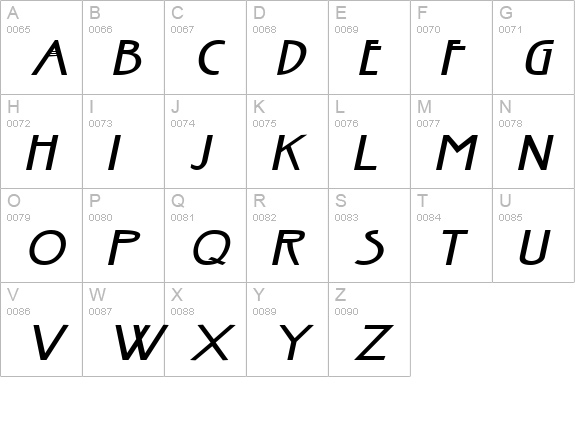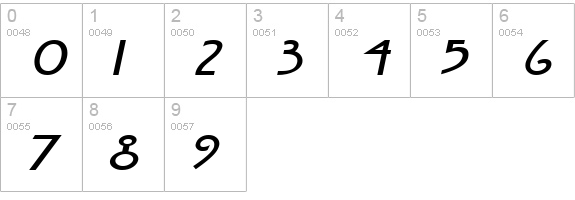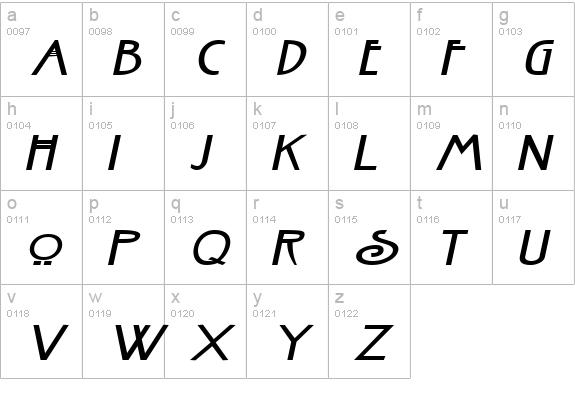
Fanzee-Extended Italic is a distinctive, extended-width, italic variant in the Fanzee typeface family \xE2\x80\x94 well suited to design and typography projects.
Fanzee-Extended Italic font is a stylish and modern typeface that exudes elegance and sophistication. Its sleek and elongated design adds a touch of flair to any project, making it perfect for branding, editorial design, and more. The italicized slant of the letters gives a sense of dynamism and movement, making your text come alive on the page. Best of all, Fanzee-Extended Italic font is available for free download at FontsMarket.com. This means you can enhance your designs with this stunning typeface without having to worry about any costs. Whether you're a professional designer or just starting out, Fanzee-Extended Italic font is a versatile and eye-catching choice that will elevate your work to the next level. Download it today and unleash your creativity!